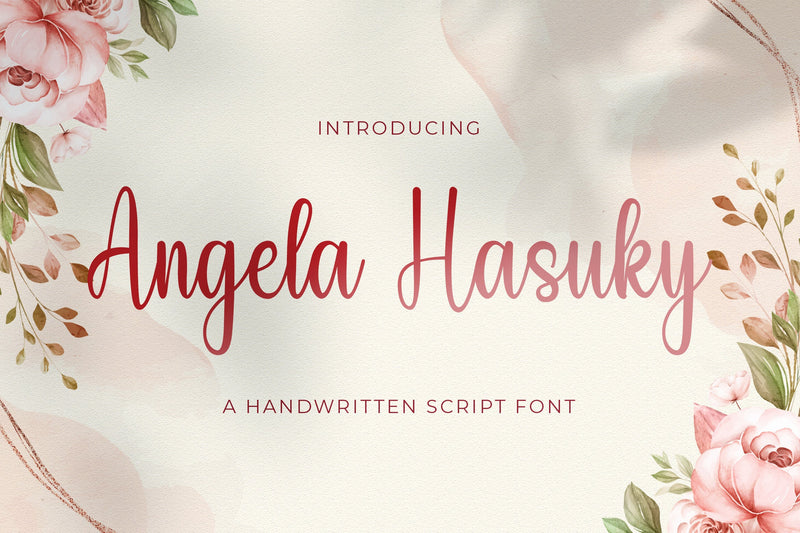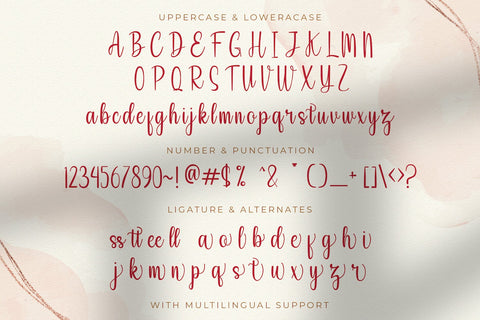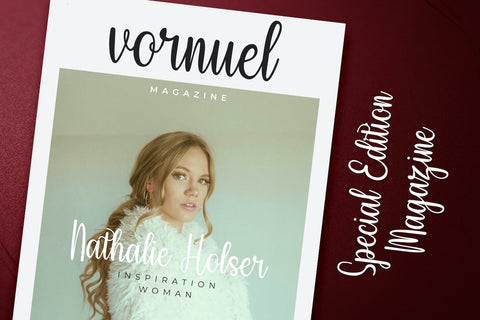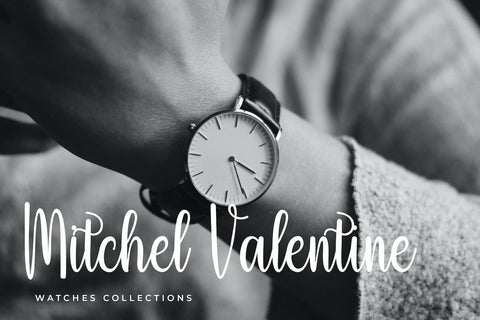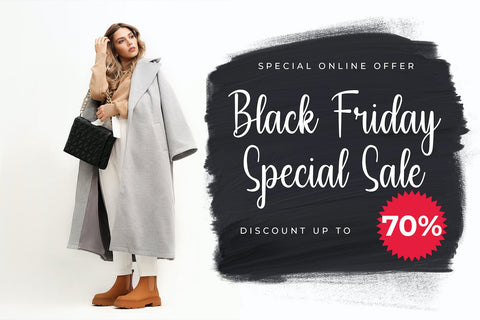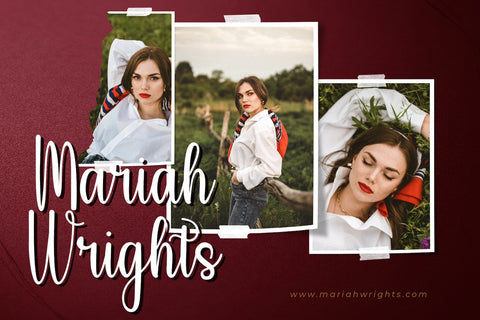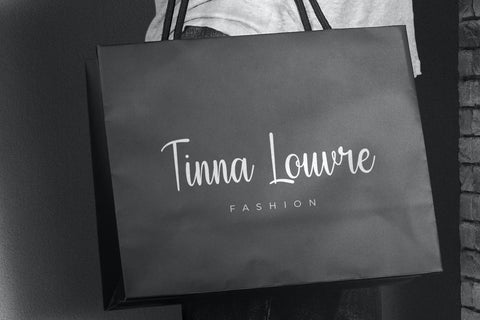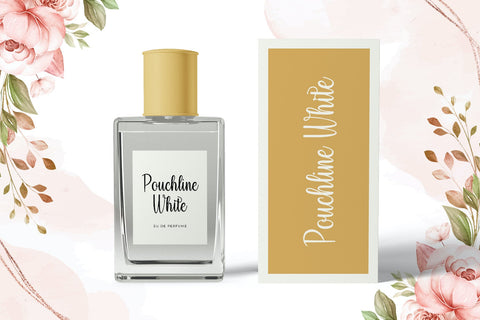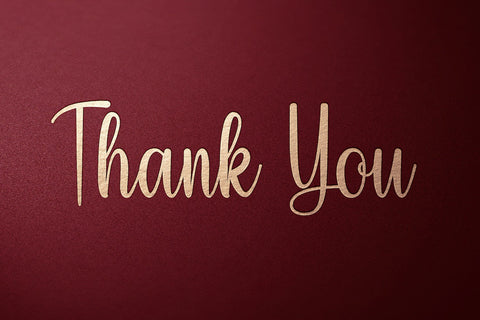
Angela Hasuky - Handwritten Font
Introducing Angela Hasuky - Handwritten Font
Angela Hasuky is a delicate, elegant and flowing handwritten font. It has beautiful and well balanced characters and as a result, it matches a wide pool of designs. Add it to your most creative ideas and notice how it makes them come alive!